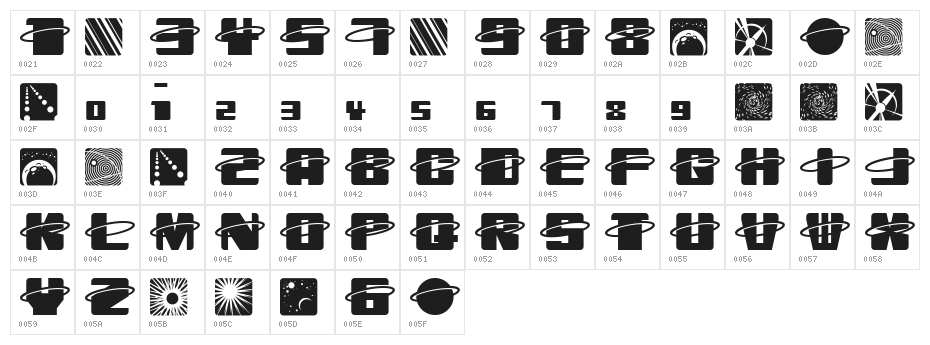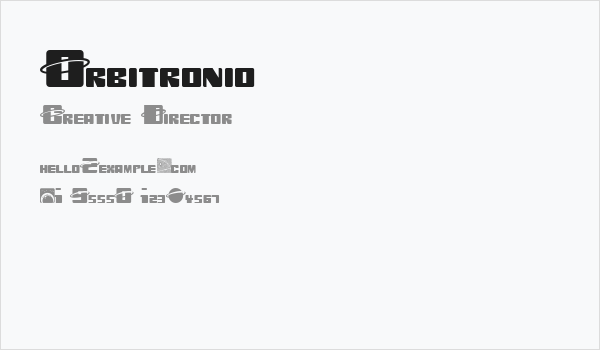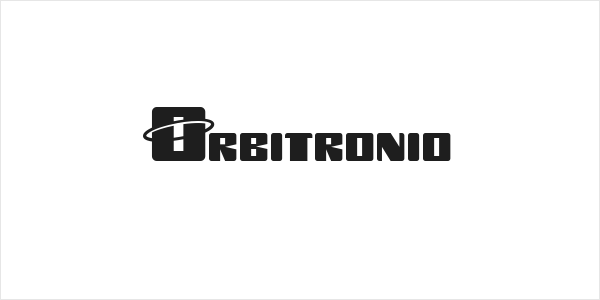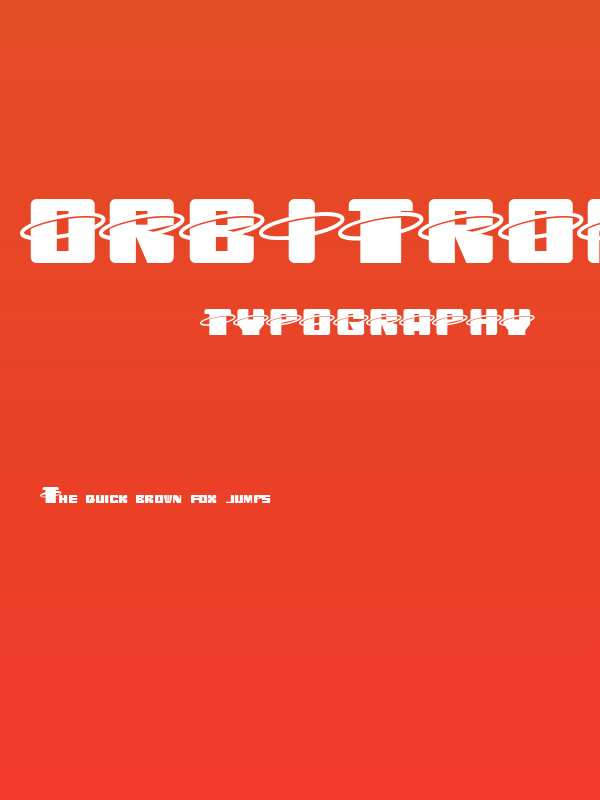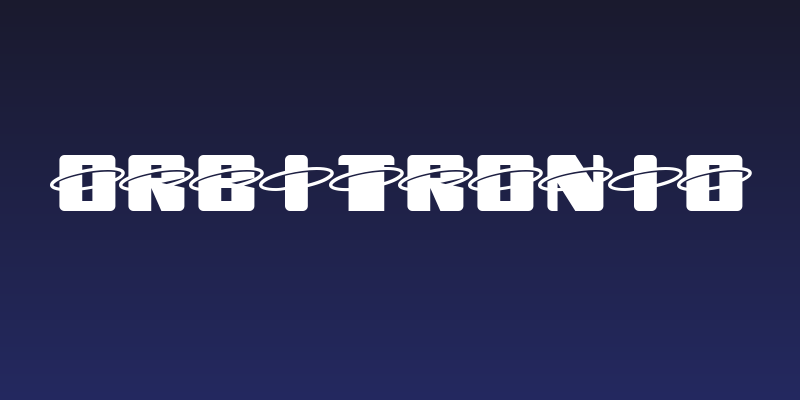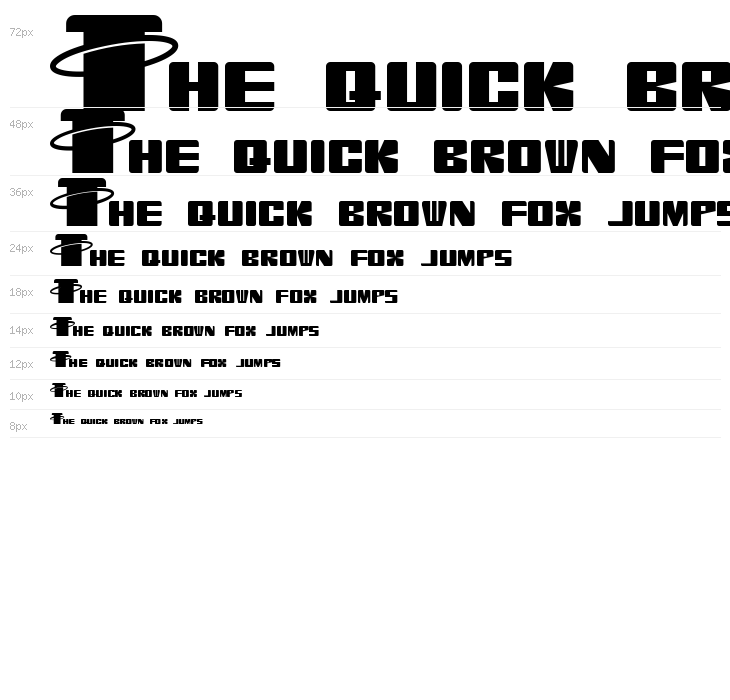
Orbitronio Font
Orbitronio Description
This font features a futuristic and bold design, characterized by its geometric and blocky letterforms. The uppercase letters are uniform in height and width, creating a strong and cohesive appearance. The style is distinctly modern, with a digital or sci-fi aesthetic that is enhanced by the consistent thickness of the strokes. The numbers and special characters follow the same bold and structured design, ensuring visual harmony across all elements. The font's unique style makes it ideal for projects that require a contemporary and eye-catching look.
| Proposed Projects | Ideal for sci-fi themed designs, tech branding, video game titles, and futuristic posters. |